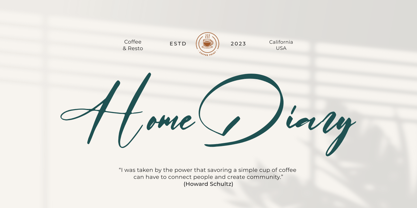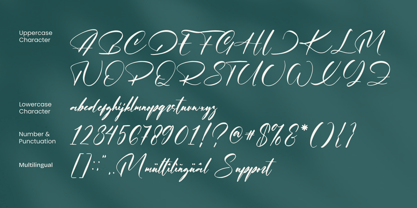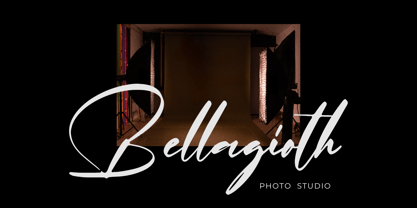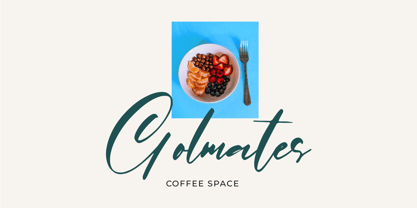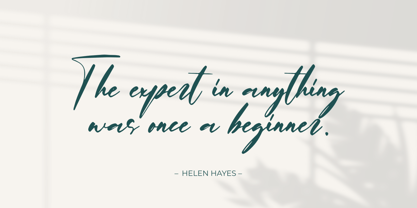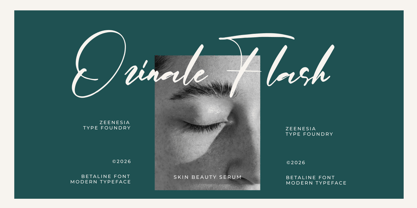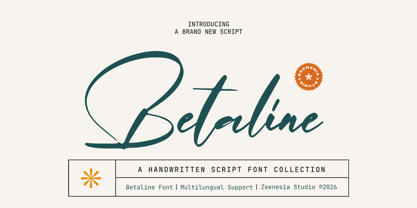
Betaline
by Zeenesia Studio
The Betaline Font Family was designed by Doni Purwoko and published by Zeenesia Studio. Betaline contains 1 styles. More about this family
Betaline is a romantic handwritten script font that captures the beauty of natural pen strokes with an elegant and expressive personality. Designed to feel authentic, smooth, and graceful, Almena brings warmth and sophistication to every design, making it perfect for modern branding and timeless creative projects.
Its flowing letterforms, balanced proportions, and handcrafted details create a luxurious handwritten appearance while maintaining excellent readability. Whether you're creating a feminine brand identity or an elegant editorial layout, Almena delivers a refined and personal touch.